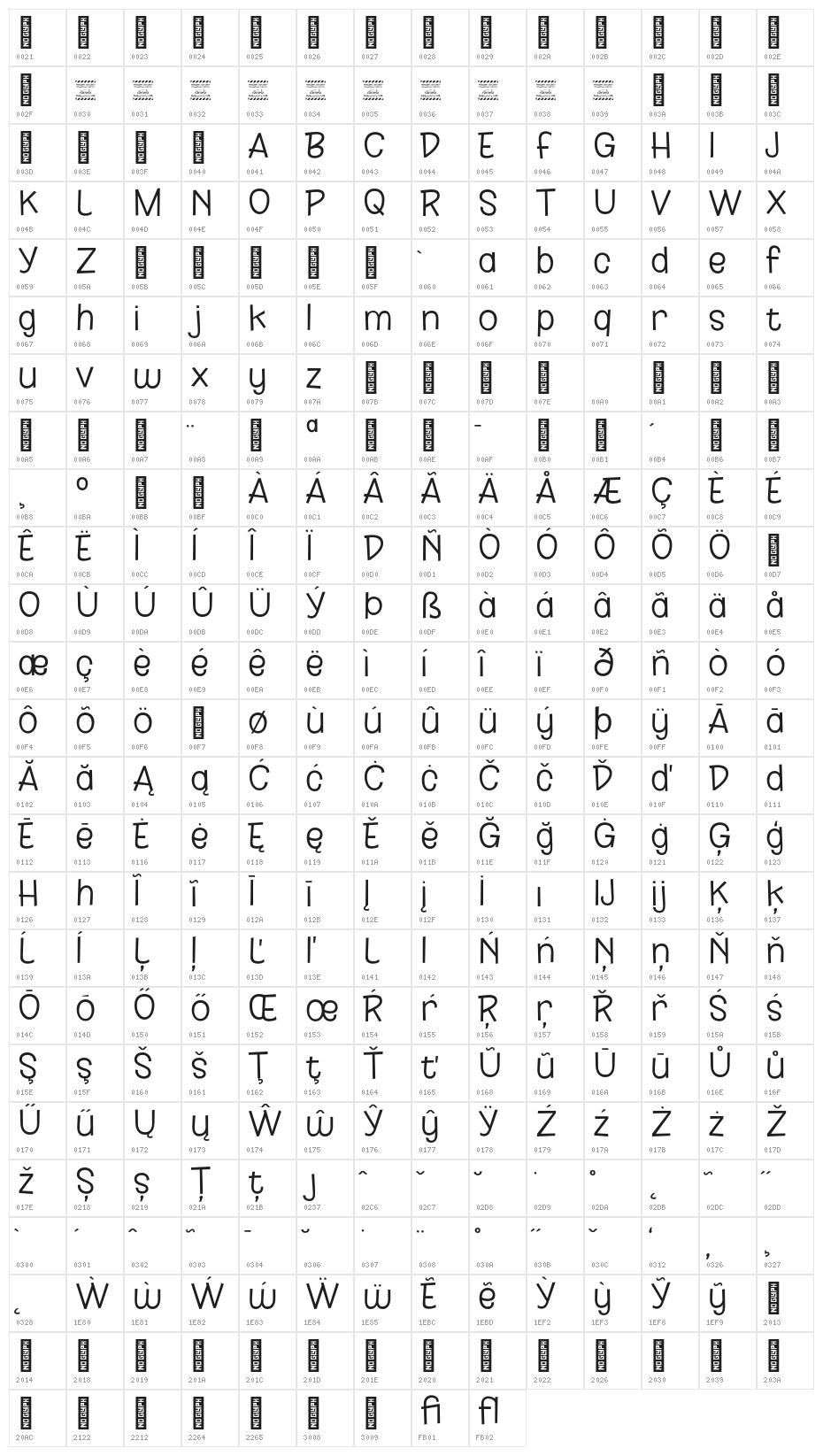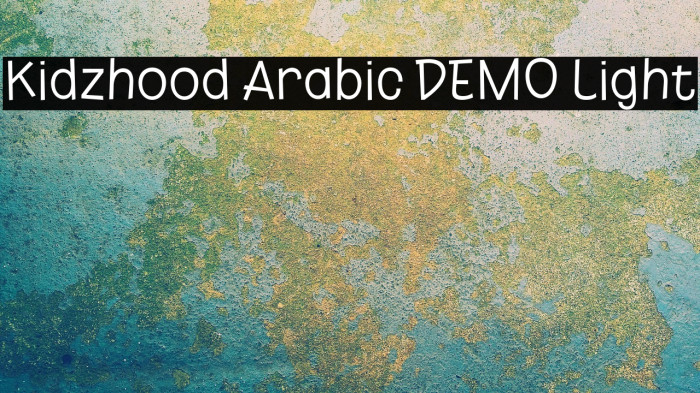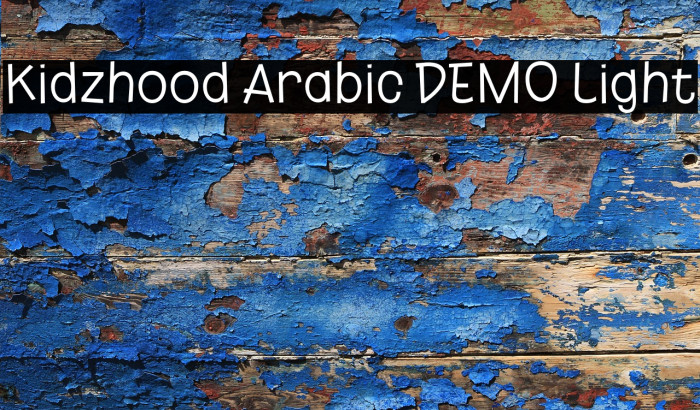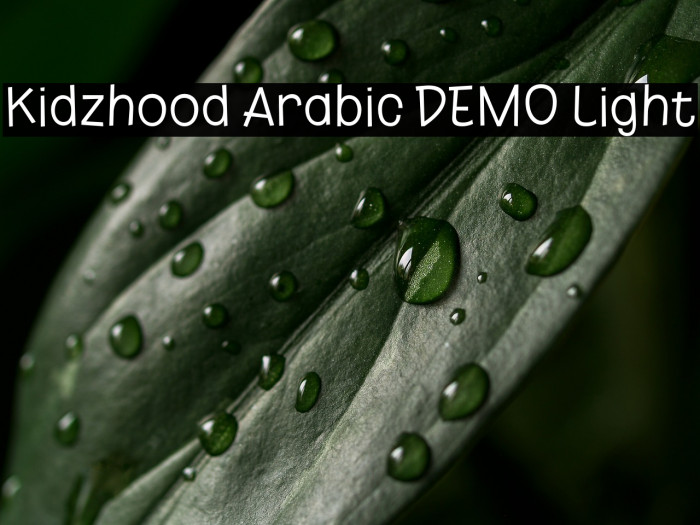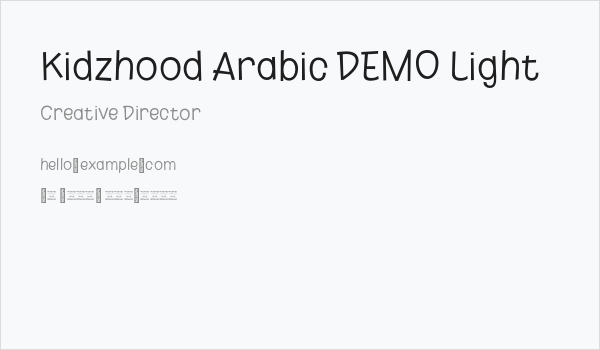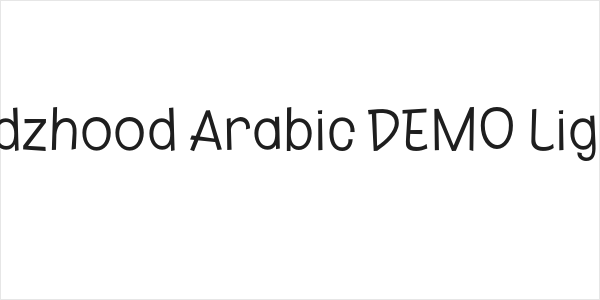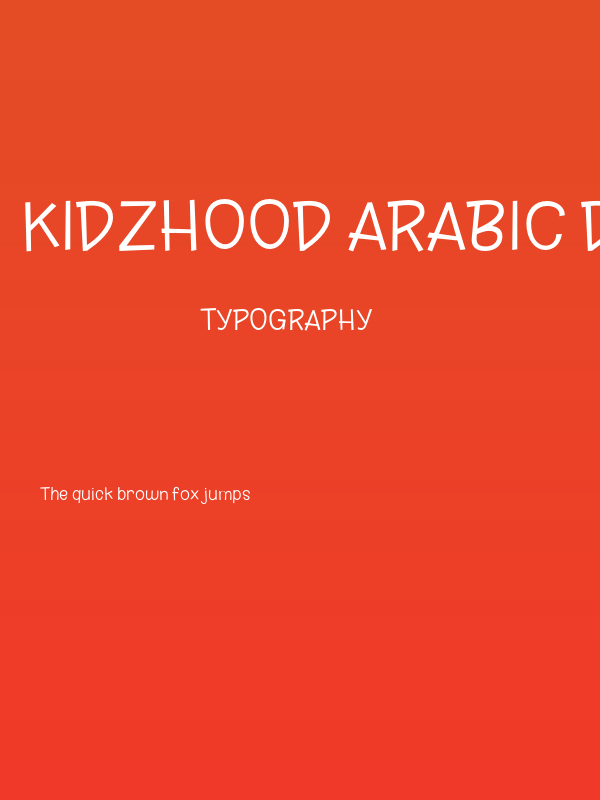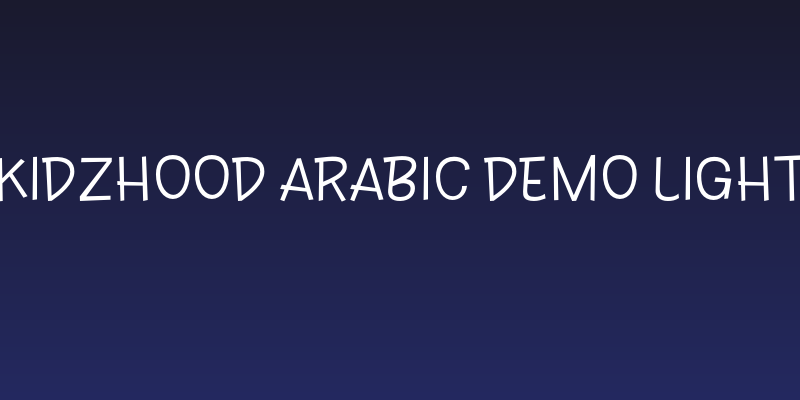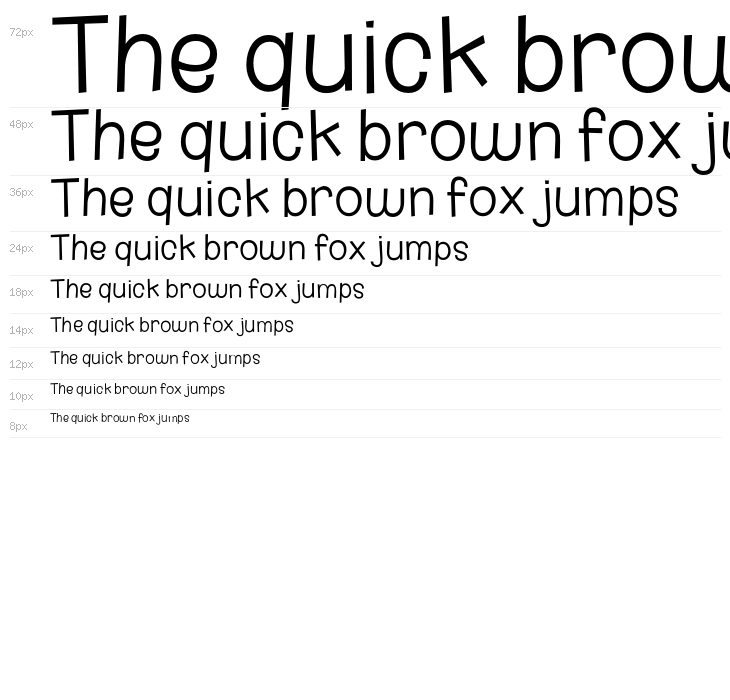
Kidzhood Arabic DEMO Light Font
Kidzhood Arabic DEMO Light Description
This playful and youthful font features a handwritten style with a casual and friendly appearance. The characters are slightly irregular, adding a whimsical touch that is perfect for informal and child-oriented designs. The strokes are consistent in weight, providing a harmonious look across both uppercase and lowercase letters. The font maintains a clean and legible appearance, making it suitable for various creative projects. Its unique style captures a sense of fun and creativity, making it ideal for projects aimed at younger audiences or those seeking a lighthearted feel.
| Proposed Projects | Children's books, educational materials, playful branding, greeting cards, and creative posters. |